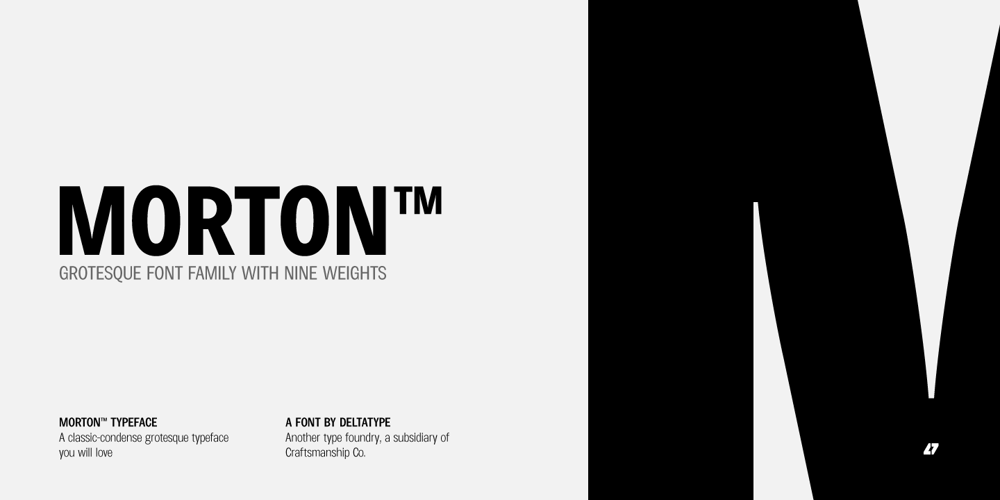
Morton Font Family was designed by Kwanchai Akkaratammagul and published by Deltatype. Morton contains 9 styles and family package options. Morton, another modern grotesque typeface which deliver a extraordinary unique within typeface with the style of condensed let you create more impact with your design. Morton Type Family available in nine weights, the Thin weight deliver you a simple hair line stem until you reach the bold weight, you will get more dynamic with three stem weights which give you a modern, old school look and feel.